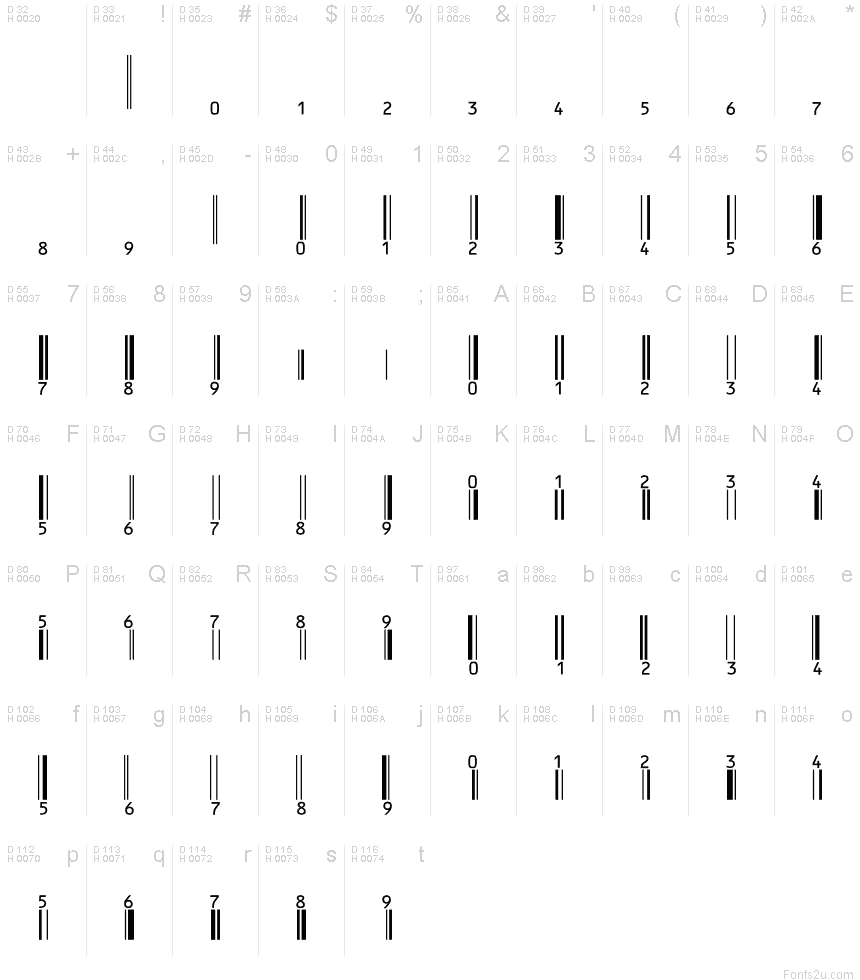
EanBwrP36Tt
EanBwrP36Tt font by Bear Rock Technologies Corp is a free barcode dingbat typeface that turns plain text into crisp, scannable bars with zero fuss. Its dense vertical stripes, clean edges, and steady rhythm make it look like it came straight off a retail label printer. Consistent proportions keep codes tidy across different sizes, so you can generate professional-looking barcodes without wrestling with specialized software.
Using EanBwrP36Tt, you can quickly build product packaging, inventory labels, retail price tags, shipping stickers, warehouse bin markers, and realistic brand mockups. This free font also works beautifully in UX prototypes or editorial layouts where you need a convincing barcode graphic. For a polished system, pair it with a simple sans-serif for surrounding text and keep the barcode slightly larger than body copy to preserve clarity and scan reliability.